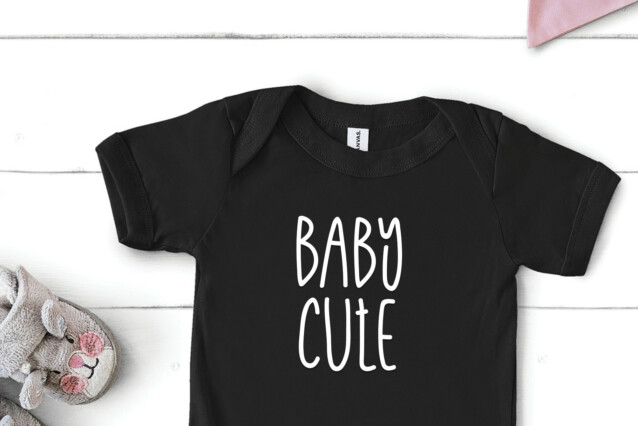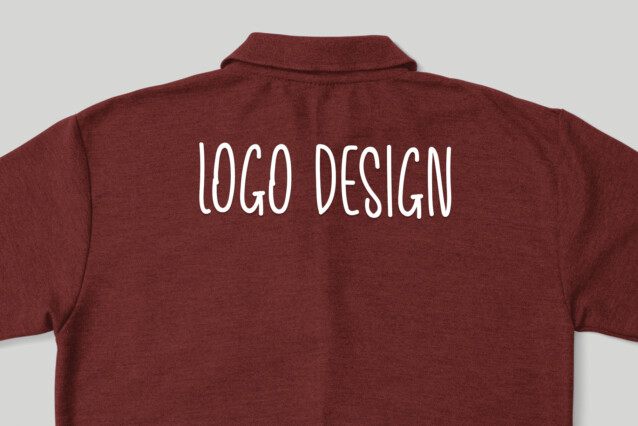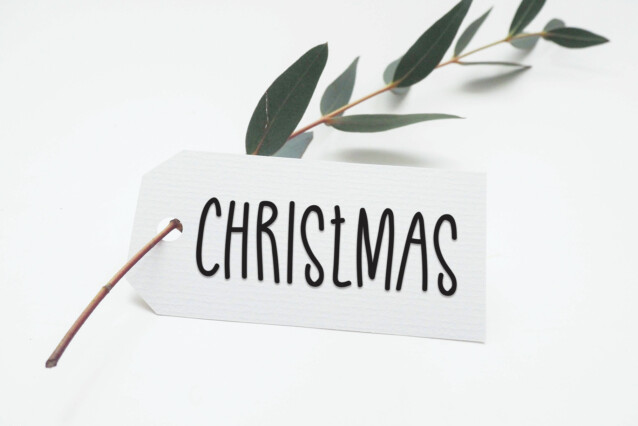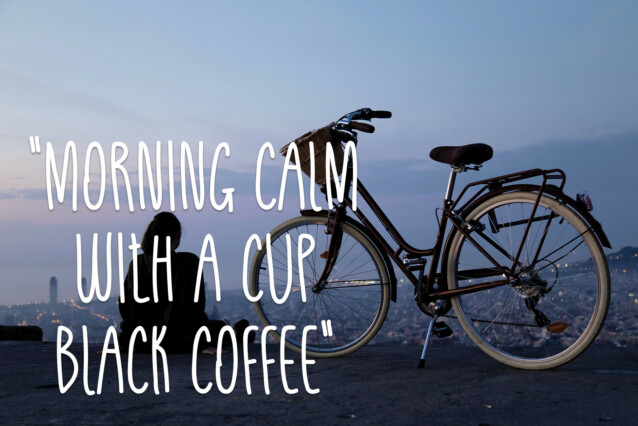
Lovenow Handwritten Font
Lovenow Handwritten Font is a sweet and friendly handwritten font. Fall in love with its incredibly versatile style and use it to create gorgeous wedding invitations, beautiful stationary art, eye-catching social media posts, and much more!